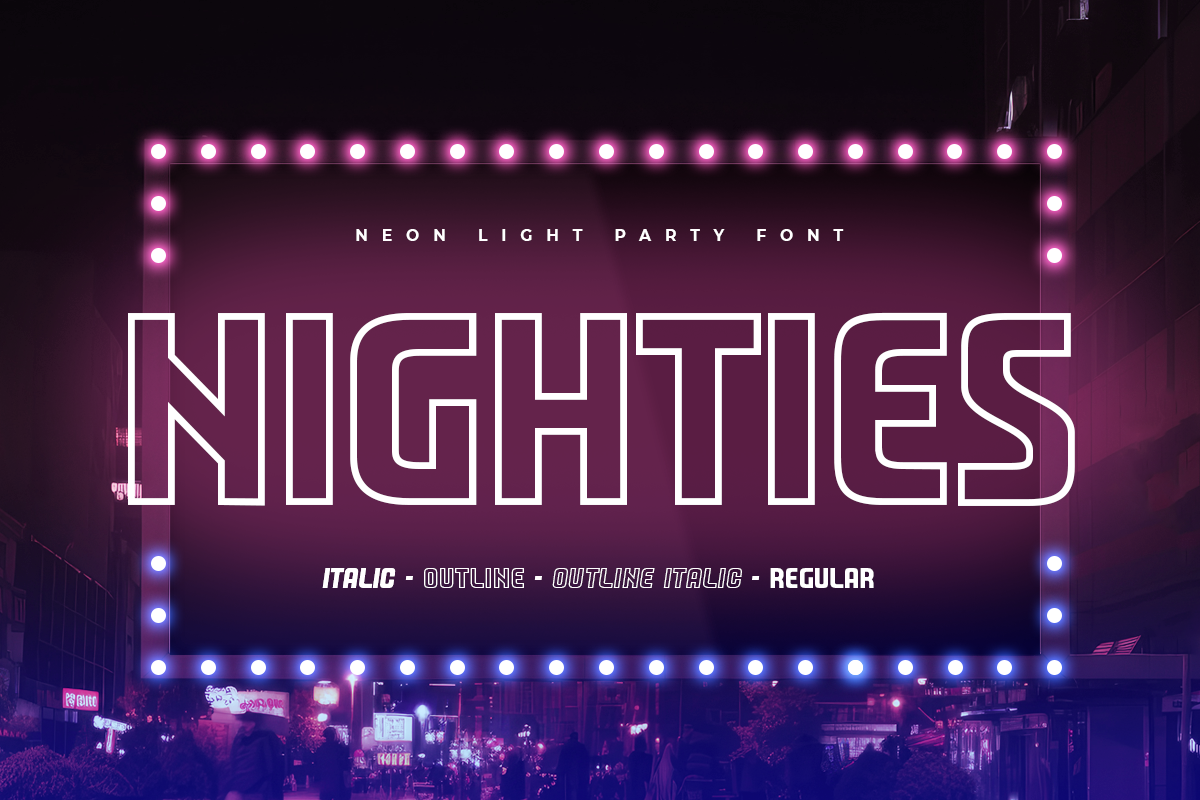
NIGHTIES - Neon Light Party Font
Electrify your designs with NIGHTIES - the neon-inspired display font that brings party vibes to life. This unique sans serif typeface captures the essence of neon lights and nightlife energy, making it perfect for party events, club promotions, and any design that needs to stand out. The distinctive letterforms deliver modern appeal with retro flair, ideal for headlines, titles, and typography that demands attention. NIGHTIES is crafted specifically for impactful display use, helping your main ...